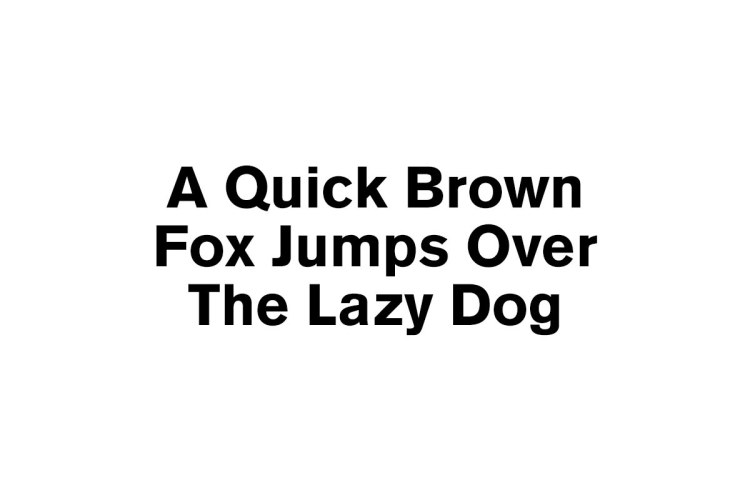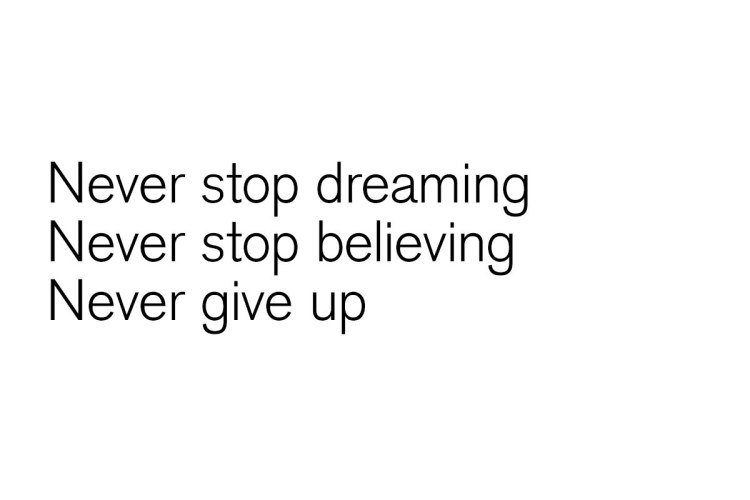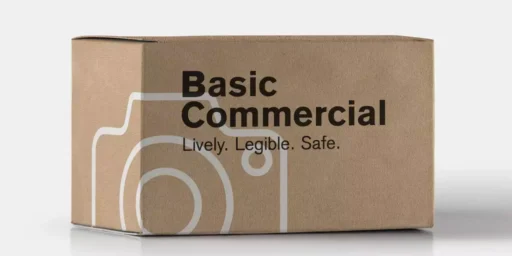
Basic Commercial Font
Basic Commercial is a sans serif font family that draws inspiration from the industrial and commercial design of the early twentieth century. It features straightforward geometric forms and even character spacing. The font has been reintroduced with a new design and can be used for a multitude of different design purposes. For its simplicity, many graphic designers and typographers are still using this font even after all these years.
The history of Basic Commercial dates back to the early 1900s when there was rapid growth in type design. The typeface is a sans-serif grotesque, a style that first appeared in the 19th century due to its no-nonsense look. These typefaces were meant to be clear and easy to read, making them suitable for commercial printing and advertisement.
Basic Commercial was developed by Monotype, a type foundry company that was popular in the 1920s. Monotype designed it in order to meet the growing demand for a font to use on different printed materials. Because of its simplicity and proper proportions, it has been one of the most popular fonts in the field of commercial typography.
Monotype has recently taken up the challenge of redesigning Basic Commercial and bringing it back into the contemporary world without losing its originality. This revival involved scanning the typeface and then increasing the number of glyphs and weights available in the typeface. The new version of Basic Commercial has improved flexibility making it an ideal font for both online and offline advertising.
The new Basic Commercial typeface comes in Light, Regular, Medium, and Bold, with corresponding italics. This expansion makes it possible for designers to come up with a proper visual hierarchy in their designs since they can use different weights on different elements.
Basic Commercial’s features include its simple, cubic shapes and well-proportioned strokes. This font is very versatile and can be widely used in various designs because of its simple and non-descriptive look. It possesses very good readability, even at small sizes, thanks to its harmonious proportions; its design is also quite straightforward, thus providing a sense of professionalism. As mentioned earlier, Basic Commercial has many advantages, one of which is flexibility. This font is best to use for display and text purposes, so it is highly suitable for branding, editorial design, advertising, and web design.
After its revival, Basic Commercial has become one of the go-to fonts for designers and brands who are looking for a clean and functional font. This versatility of this font makes it ideal for use in a number of fields ranging from business branding to publication design. The sans-serif and the simple design of the typeface are suitable for use in creating a corporate or friendly look.
When it comes to conveying concepts of the contemporary and trustworthiness, brands and publications often opt for Basic Commercial. This makes it easily understandable and aesthetically pleasing regardless of the platform used, be it print or electronic.
Some of the typefaces that are comparable to Basic Commercial due to their non-descript look, readability and usage include:
Helvetica: This is the classic, famous sans-serif font of all time. Due to its streamlined appearance, it is quite similar to Basic Commercial.
Univers: Another sans serif font that is highly customizable is the Univers font, which has a number of variants in terms of weight and style.
Akzidenz Grotesk: In the same way that it could have been the design reference for Basic Commercial, Akzidenz Grotesk has a close historical background and visual affiliation.
Franklin Gothic: It is a traditional, sans-serif font that comes in many weights and is great for both headline and text use.
Monotype, a prominent type foundry designed this font.
It goes quite well with both serif fonts such as Garamond or Baskerville and other sans-serif fonts like Futura or Avenir.
Yes, Basic Commercial has multilingual support, which means that you can use it for your projects in different countries. It has numerous glyphs to support a vast array of languages and writing systems.
Where Basic Commercial Font works best
Basic Commercial Font keeps its shape at 14 and 16 pixels, which is where interface text actually lives. Numbers and capitals stay distinguishable in tables.
Presentations are read at a distance; a clean sans with a strong bold is the safest hierarchy you can build in a hurry.
Simple letterforms survive angles, glare and movement, so Basic Commercial Font suits door signs, menus boards and exhibition panels.
What kind of work does Basic Commercial Font suit?
It sits in the Sans Serif Fonts group and reads as bold, classic, geometric, modern. That makes it a candidate wherever those qualities help: headings, packaging, social graphics and brand work. Set it at the size you plan to use before deciding.